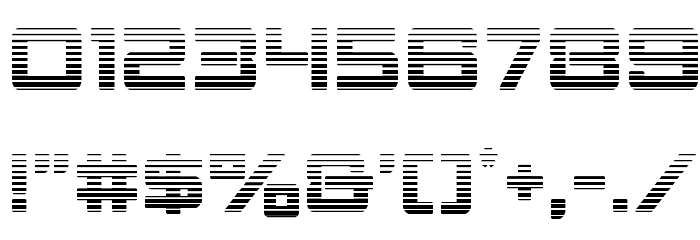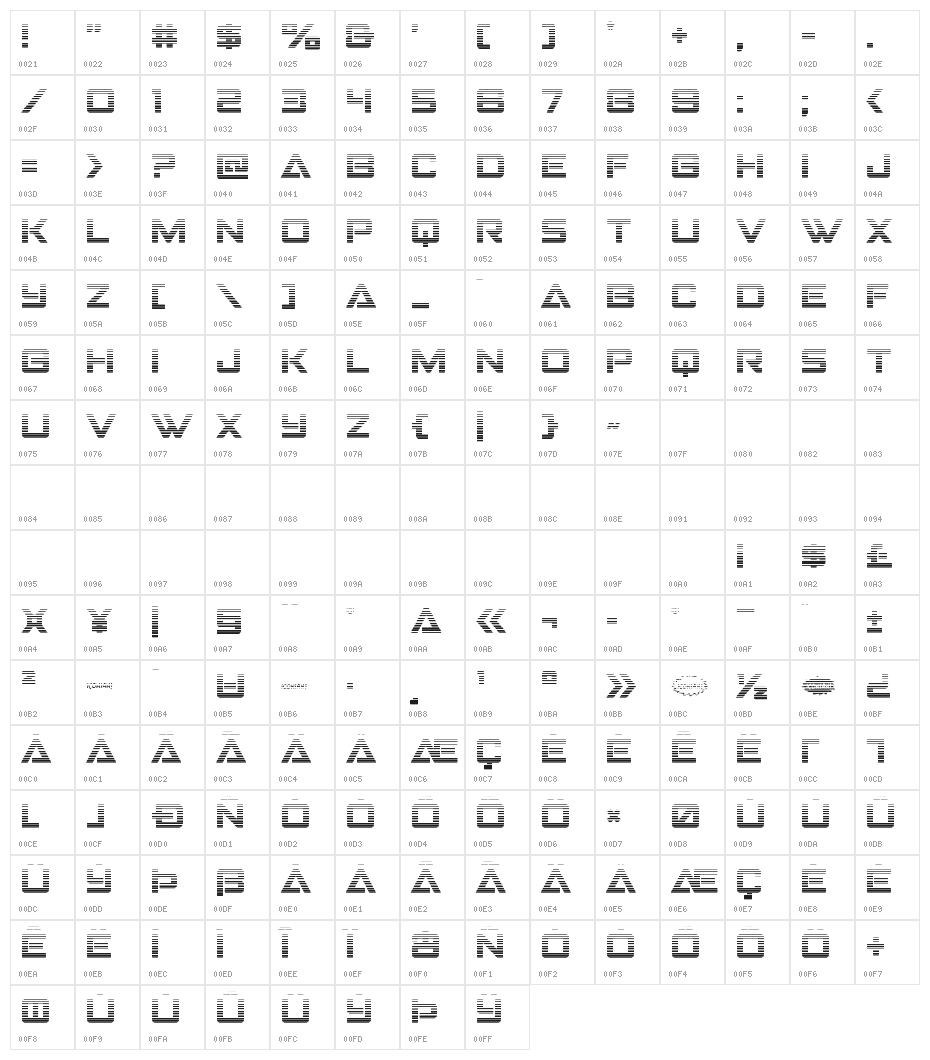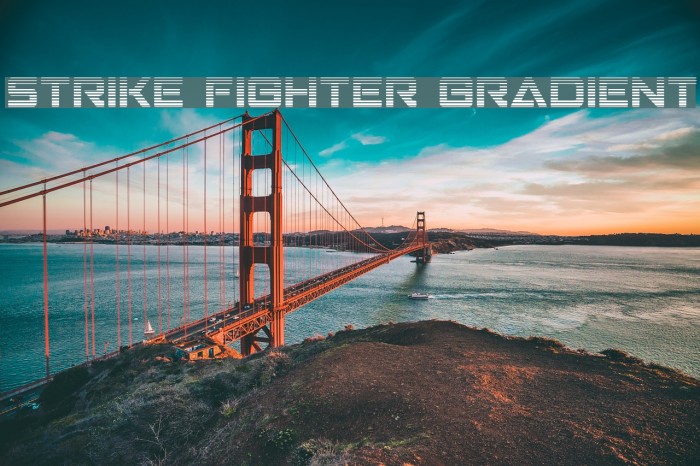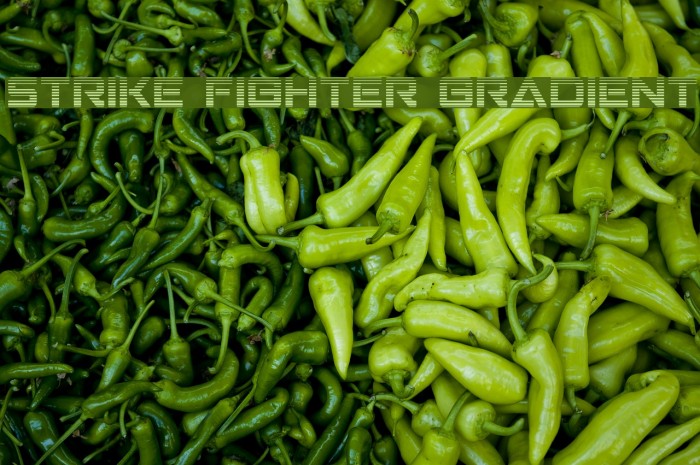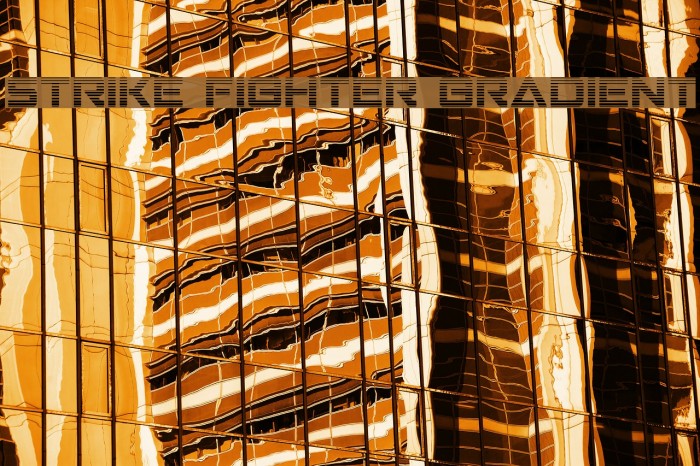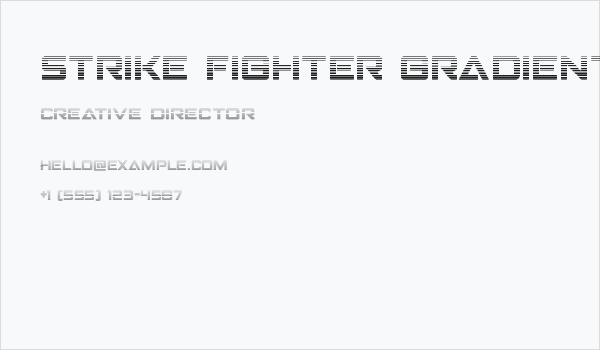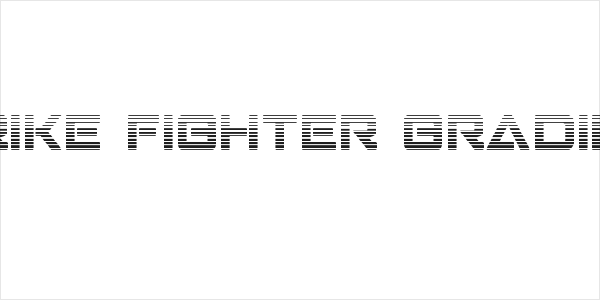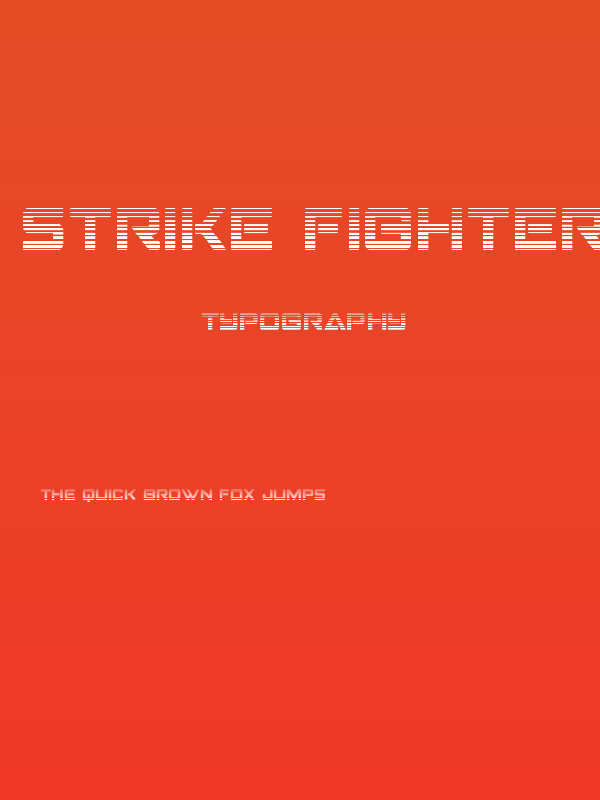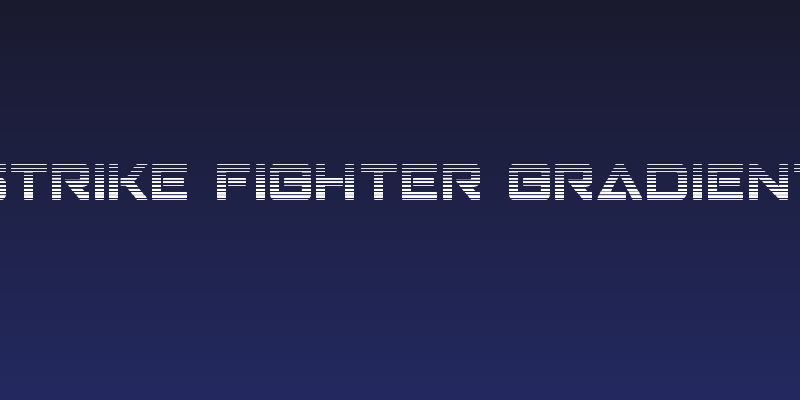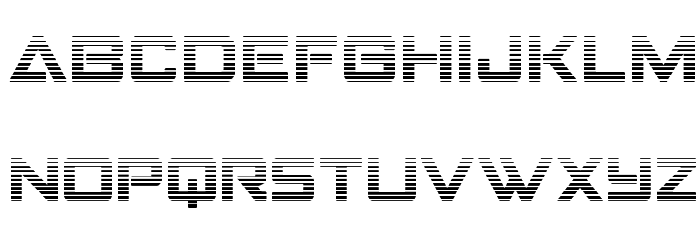
Strike Fighter Gradient Font
Strike Fighter Gradient Description
This font features a bold, futuristic design with a distinctive gradient effect created by horizontal lines running through each character. The uppercase letters are angular and geometric, giving a sense of speed and modernity. The lowercase letters maintain the same style, ensuring consistency across the typeface. Numbers and special characters are designed to match the bold, linear aesthetic, making this font ideal for projects that require a strong, impactful visual presence. The overall design is reminiscent of digital displays or high-tech interfaces, making it suitable for technology-related themes.
| Overall Style | Futuristic, Modern |
| Proposed Projects | Ideal for technology branding, video game titles, sci-fi movie posters, and digital interfaces. |